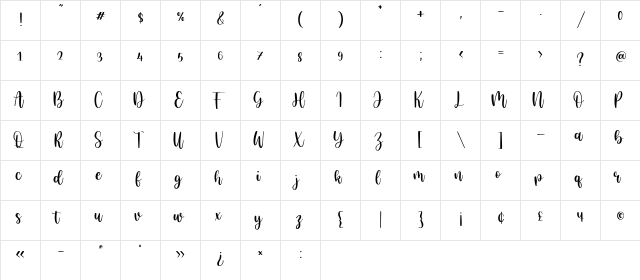
Goldie Rainbow Regular
| Designer | Balpirick Studio |
Design Context for Goldie Rainbow Typeface
Goldie Rainbow is a composed and adaptable typeface that performs quietly and consistently across a wide range of design contexts.